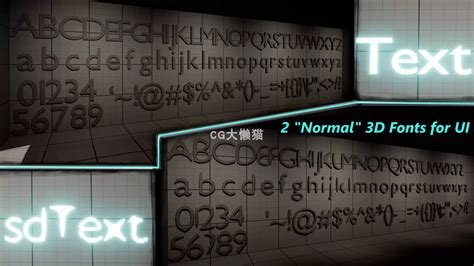
In the world of digital design and development, typography plays a crucial role in creating visually appealing and functional interfaces. For developers and designers working with Unreal Engine 5 (UE5), the choice of fonts can significantly impact the overall aesthetic and user experience of their projects. Fortunately, there are numerous resources available for obtaining Ue5 Fonts Free, which can be integrated seamlessly into Unreal Engine 5 projects. This post will guide you through the process of finding, integrating, and optimizing free fonts for use in UE5.
Understanding the Importance of Typography in UE5
Typography is more than just selecting a font; it involves the art and technique of arranging type to make written language legible, readable, and appealing when displayed. In UE5, typography can enhance the immersion of a game or application by setting the right tone and mood. Whether you are developing a high-fantasy RPG or a futuristic sci-fi shooter, the right font can make all the difference.
Optimizing Fonts for Performance
While integrating Ue5 Fonts Free into your project, it’s essential to consider performance optimization. Here are some tips to ensure that your fonts do not negatively impact the performance of your UE5 project:
Use Appropriate Font Sizes
Large font sizes can consume more memory and processing power. Use appropriate font sizes that balance readability and performance. For example, use smaller font sizes for UI elements that are not the primary focus.
Limit the Number of Fonts
Using too many different fonts can increase the load time and memory usage of your project. Stick to a few well-chosen fonts that complement each other and use them consistently throughout your project.
Optimize Font Assets
In the Font Asset editor, you can optimize the font by selecting only the characters you need. This reduces the file size and improves performance. For example, if your project only uses Latin characters, you can exclude other character sets.
Use Anti-Aliasing Wisely
Anti-aliasing can improve the appearance of text but can also impact performance. Use anti-aliasing sparingly and only where necessary. For example, you might use anti-aliasing for larger, more prominent text elements but not for smaller UI text.
Best Practices for Using Free Fonts in UE5